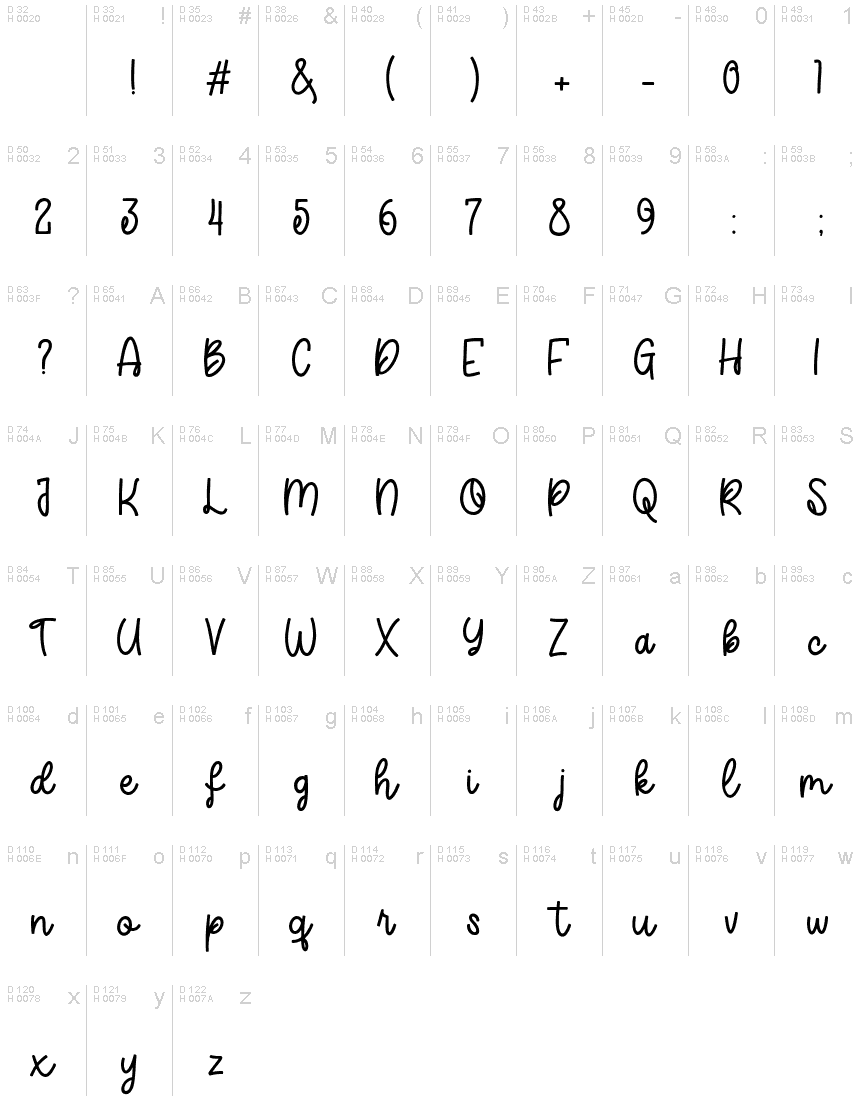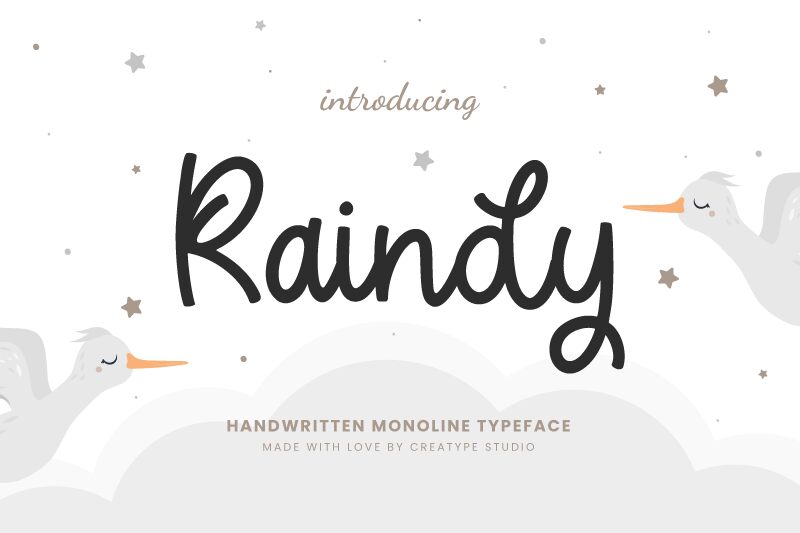
Raindy Regular
Raindy, the latest creation from Creatype Studio, is a charming handwritten monoline font that exudes simplicity and elegance. With its semi-light weight, this font is perfect for projects that require a delicate touch without sacrificing legibility. Whether you're designing wedding invitations, social media graphics or product packaging, Raindy's effortless style adds a personal touch to any project. Its clean lines and whimsical curves make it an excellent choice for both digital and print applications. Get creative with Raindy and add a touch of sophistication to your next design project!